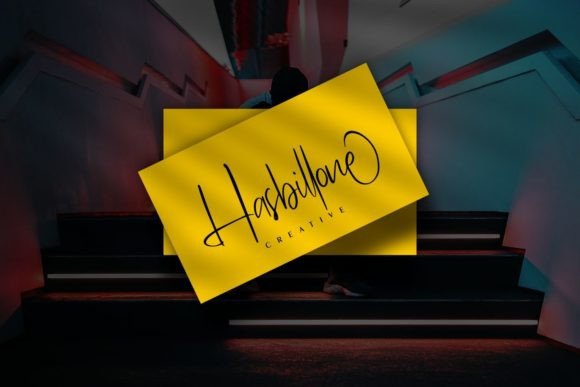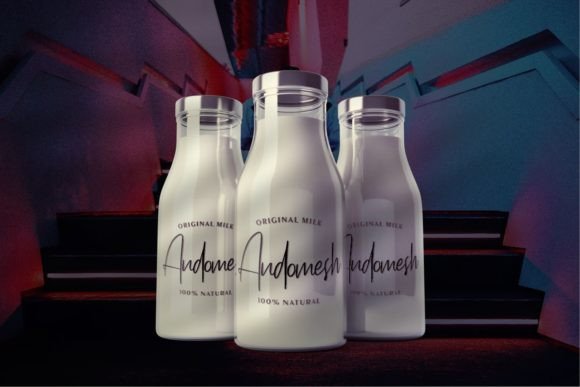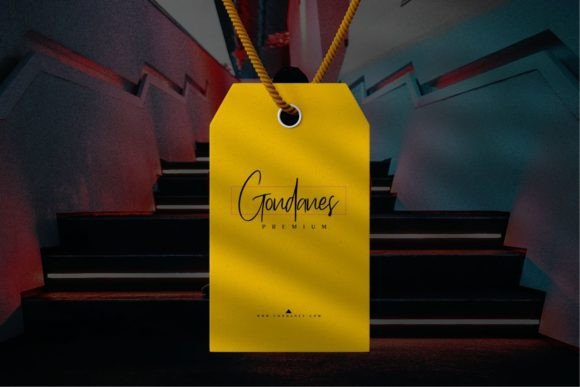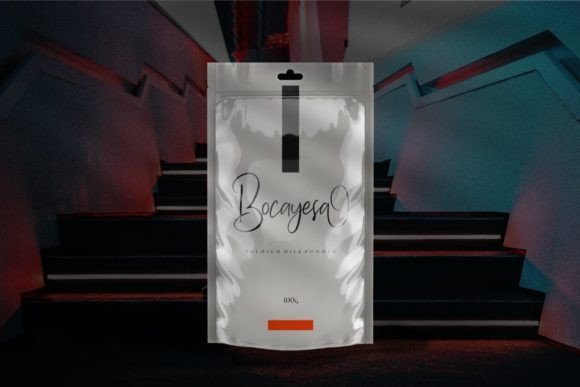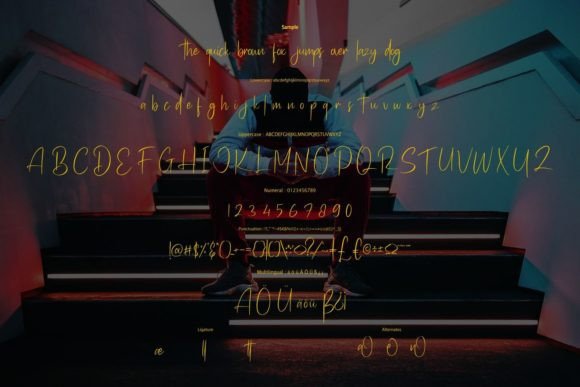
Ronthellisa Font
About Ronthellisa Font
Introducing Ronthellisa, a modern script font that exudes elegance with its calligraphy style. This font is designed to enhance the visual appeal of various creative projects, making it a beautiful choice for invitations, greeting cards, branding materials, business cards, quotes, posters, and more.
The calligraphy-inspired design of Ronthellisa brings a touch of sophistication to your text, making it perfect for occasions where a graceful and stylish appearance is desired. Whether you’re crafting invitations for a special event or designing a business card that leaves a lasting impression, Ronthellisa adds a contemporary and refined look to your work.
The versatility of Ronthellisa makes it suitable for a range of applications. Use it to create impactful quotes or motivational posters, where the calligraphy style adds a touch of artistic flair to the text. In branding, Ronthellisa can contribute to creating a distinctive and memorable identity, thanks to its modern and elegant script.
The smooth and flowing strokes of Ronthellisa make it visually appealing and easy to read, ensuring that your message comes across with clarity and style. Its modern aesthetic allows it to seamlessly integrate into both digital and print materials, providing a consistent and polished look across various platforms.
In essence, Ronthellisa is more than just a font; it’s a design asset that elevates your text with a contemporary calligraphy style. Whether you’re a designer working on branding materials or an individual creating personal projects, let Ronthellisa be the elegant and modern script that enhances the visual impact of your work.